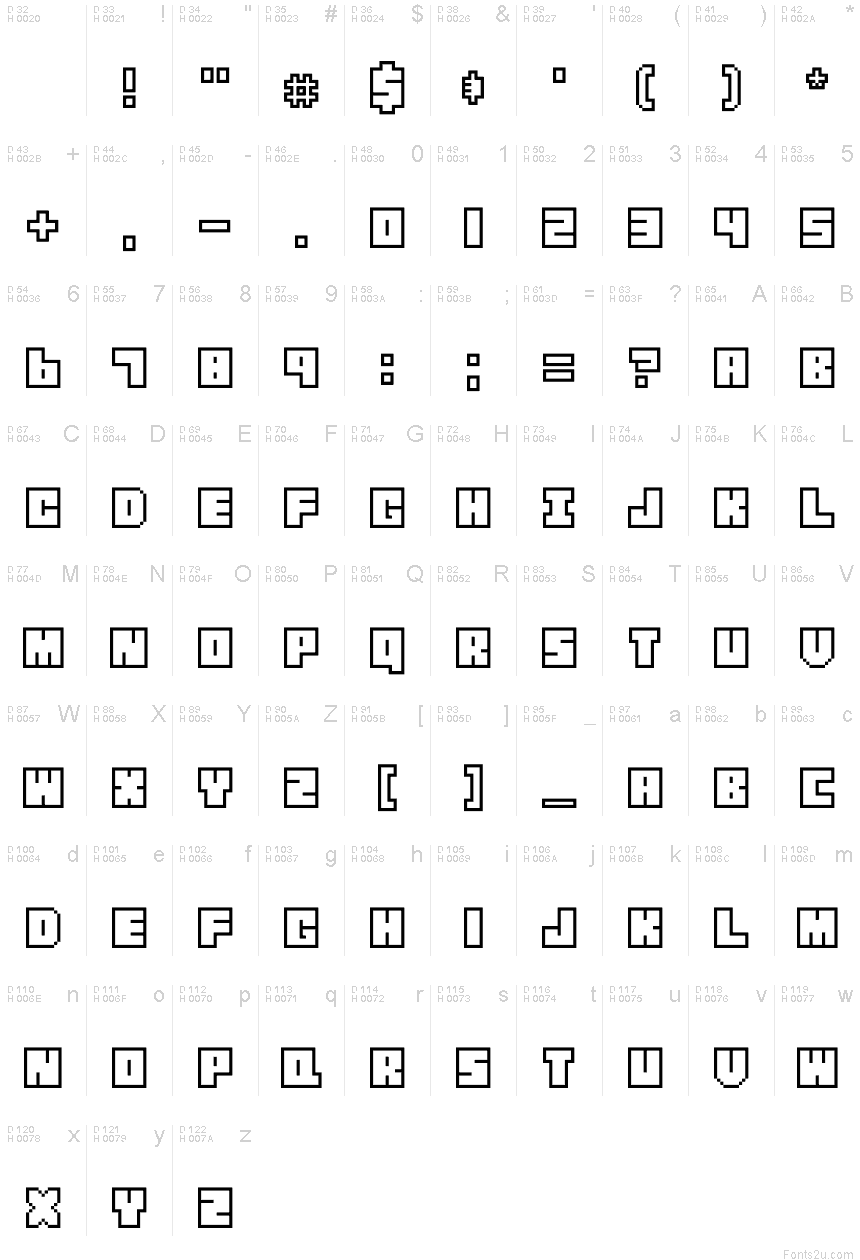
Blocked by Sabata of FontStruct is a free techno display font with massive, squared letterforms and a large-scale arcade-machine attitude. Its broad capitals use tight rectangular openings, deep vertical notches, and abrupt corners. The nearly uniform weight gives each word a dense and industrial silhouette.
Those hard-edged forms can echo pixel art, control-panel graphics, and geometric patterns in game posters, electronic music packaging, and streetwear merchandise. Across these uses, the font acts almost like a row of engineered signs, linking the lettering to machinery, retro gaming, and other technology-centered imagery.
The capital letters are slightly different from the lowercase letters; see the chart.